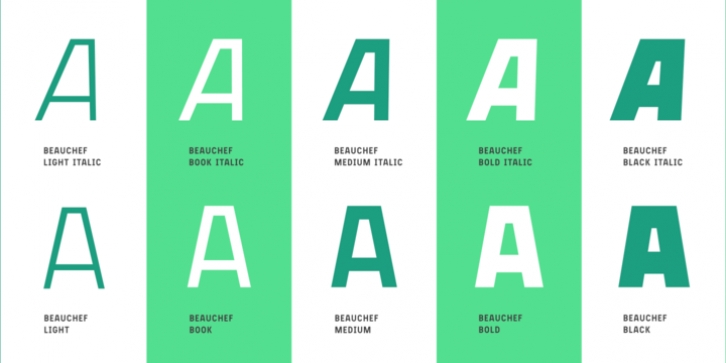
Beauchef is a sans serif typeface, originally created to meet the needs of the Center for Mathematical Modeling, University of Chile. With very hard and optical compensation few strokes, Beauchef is drawn with a geometry that no tranza too with optical and perceptual compensation laws.
The drawing then corresponds to a not very cheerful physiognomically typography, but gives us a very particular idiosyncrasies of the way.
Finally, Beauchef is a typeface that is as tough as advanced mathematics, but as readable, clear and accurate as the numbers themselves. A typeface that is as edgy as the amazing math projects, but so conservative, quiet and respectful, as clients who need their services. It is as colorful as the bulky formulas with working mathematicians, yet so lowly as the final figure that the results delivered.